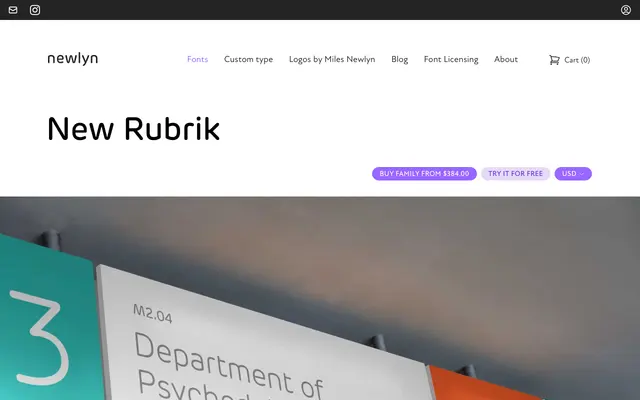
New Rubrik Italic
A geometric sans-serif in seven weights with matching italics, suited to institutional and editorial work across a range of sizes.
New Rubrik offers seven weights from ExtraLight to ExtraBold, each with a corresponding italic, giving a full 14-style family for text and display use. The letterforms are clean and neutral with even stroke contrast, making it well suited to branding and communications work for institutions, science bodies and financial organisations. Its proportions handle both large headline settings and smaller body copy without strain.
New Rubrik is a clean, geometric sans-serif with even stroke weights and neutral proportions typical of the grotesque-geometric hybrid tradition. Its upright and italic forms share the measured, corporate-ready character common to that classification.